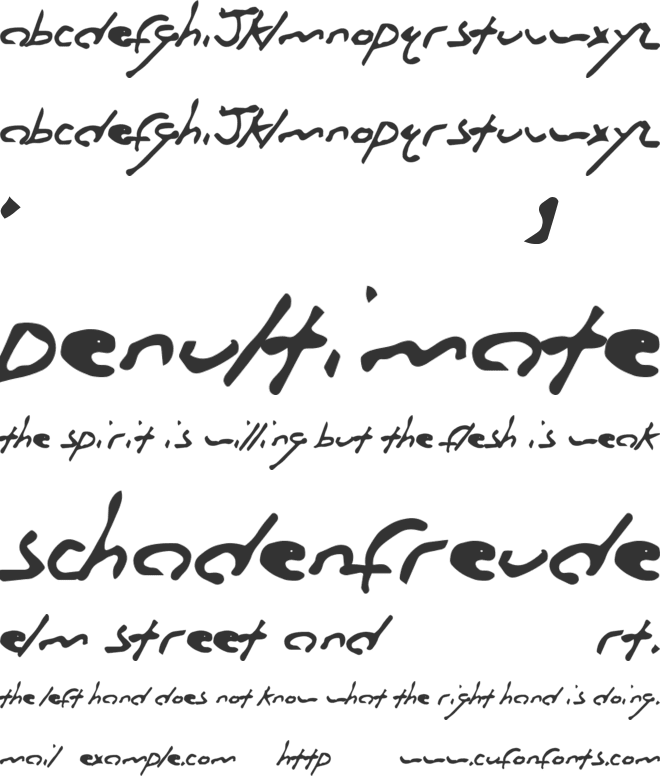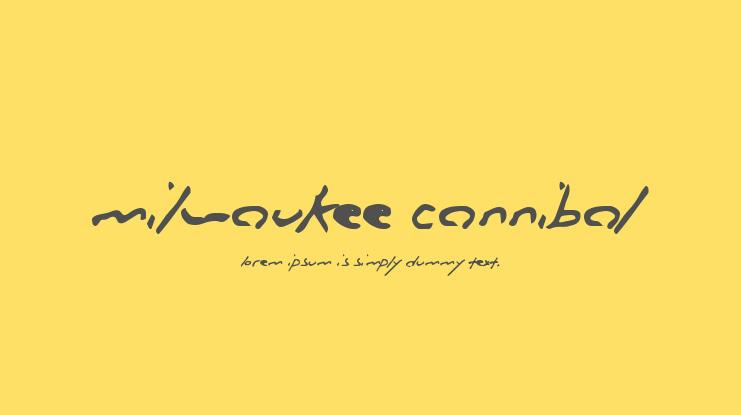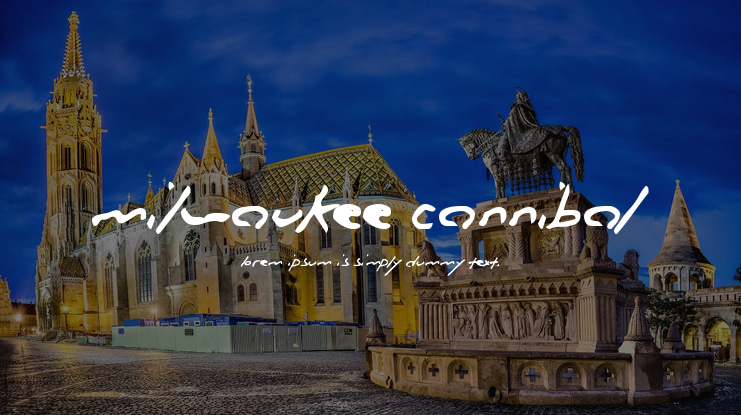
Milwaukee Cannibal Font
This font was created based off the handwriting's of Serial Killer Jeffery Dahmer.Business or commercial use not permitted without a font license.Font usage information:http://www.fontmonger.com | http://www.chrisvile.comfollow me!Facebook: http://www.facebook.com/designsbychristwitter: http://www.twitter.com/chris_vile